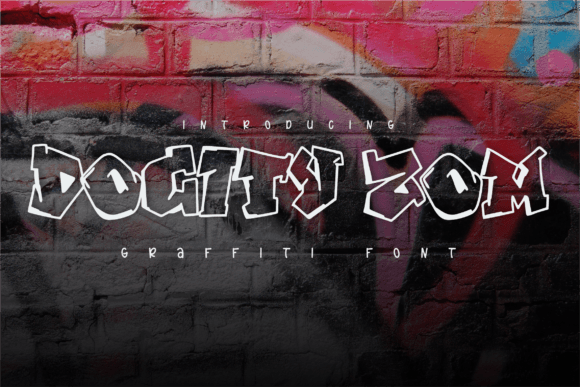
The Perfect Font for Your Creative Masterpiece
You’ve spent hours brainstorming the perfect idea, pouring your heart and soul into a concept that’s been lingering in your mind for weeks. The excitement is palpable as you bring your vision to life, but there’s one crucial element that can make or break the entire experience – the font. A well-chosen font can elevate your design, convey your message, and leave a lasting impression on your audience. That’s where the Dogity Zom Font comes in, a game-changing display font that’s sure to take your creative projects to the next level.
Whether you’re a seasoned designer or just starting out, the Dogity Zom Font is an invaluable addition to your toolkit. Its unique design and versatility make it perfect for a wide range of applications, from logos and branding to typography and graphics. With the Dogity Zom Font, you’ll have the freedom to express yourself in a way that’s truly authentic and engaging.
Dogity Zom Font Key Features
- Unique Characteristics: Dogity Zom Font features a unique blend of gothic and futuristic elements, with intricate details and bold lines, making it ideal for designs that require a touch of edginess.
- Glyphs and Characters: The font includes a wide range of glyphs and characters, including uppercase and lowercase letters, numbers, punctuation marks, and special characters, ensuring that designers have everything they need to create visually appealing designs.
Designer Review: Dogity Zom Font
Overall, I was impressed with the creativity and uniqueness of the Dogity Zom Font. ✨ The font’s distressed, hand-drawn style gives it a fun and quirky vibe that would be perfect for projects that need a playful touch. ✨ The font is also highly customizable, with a wide range of font sizes and colors to choose from.
However, I did encounter a few limitations that prevented me from giving the font a full 5-star rating. ⚠️ Firstly, the font can be quite difficult to read at smaller sizes, which may be a problem for projects that require a lot of text. ⚠️ Secondly, the font’s customizability can also be a double-edged sword – while it’s great to have so many options, it can be overwhelming to choose the perfect combination.
Here are some specific pros and cons of the Dogity Zom Font:
- Unique and creative style
- Perfect for playful projects
- Can be difficult to read at smaller sizes
- Customizability can be overwhelming
Overall, I would recommend the Dogity Zom Font to designers who are looking for a unique and playful font to add some personality to their projects. Just be aware of the limitations and take the time to choose the perfect settings for your design.
Introduction to Dogity Zom Font
Tips for Getting the Most Out of Dogity Zom Font
For the best results, use Dogity Zom Font in bold or italic styles to add emphasis to your text. Experiment with different font sizes to create visual hierarchy and balance in your design.
Dogity Zom Font is perfect for creating playful and eye-catching designs, such as social media graphics, posters, and flyers. It’s also great for adding a touch of personality to your branding and marketing materials.